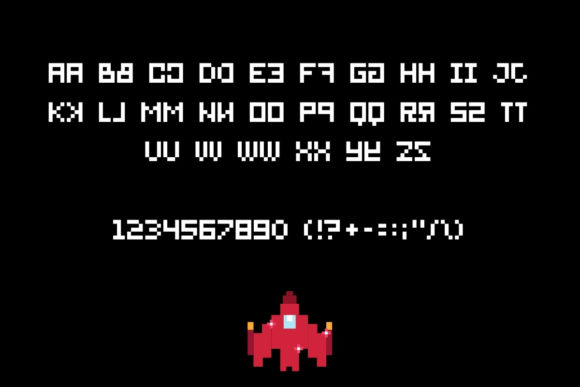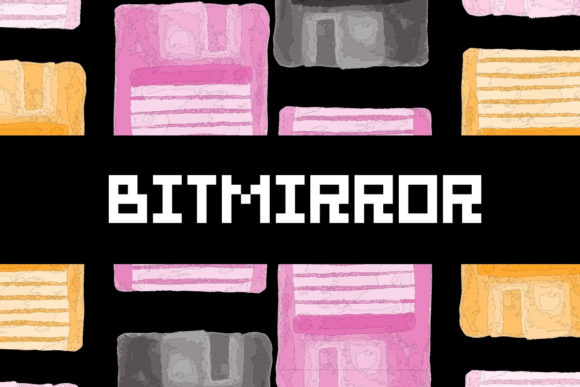
The Retro Revival: Unpacking the BitMirror Font
I still remember the design project that led me to discover the BitMirror font. I was working on a retro-themed gaming poster, and I was struggling to find the perfect font to capture the nostalgic vibe of the 90s. The client wanted something that would transport their audience back to the era of pixelated graphics and chunky computer screens. After hours of scouring font libraries and marketplaces, I stumbled upon BitMirror – a display font that instantly brought my design to life.
First Impressions: A Love Letter to BitMirror
BitMirror is a display font inspired by 90s era graphics, and it shows. The nostalgic pixelated design is perfect for retro or gaming-related projects. Here’s what I love about it:
• Retro charm: BitMirror’s pixelated design instantly evokes the nostalgia of 90s graphics.
• High legibility: Despite its pixelated nature, the font remains surprisingly legible, even at smaller sizes.
• 💻 Versatility: BitMirror can be used for a wide range of projects, from posters and logos to social media graphics and video game assets.
A Few Quirks to Keep in Mind
While BitMirror is an excellent font, it’s not without its limitations:
• 🤔 Limited use cases: BitMirror is a display font, which means it’s best suited for headlines and titles rather than body text.
• ⚠️ Glyph limitations: As a pixelated font, BitMirror’s glyph set might be limited compared to more modern fonts.
Putting BitMirror to Work: A Practical Guide
Exploring Alternatives: Similar Fonts to BitMirror
If you like BitMirror, you might also enjoy these similar fonts:
• PixelMilk: A smooth, rounded pixel font perfect for digital signage and video game assets.
• Press Start: A chunky, 8-bit inspired font ideal for retro-style posters and logos.
• Chiny: A stylized, pixelated font with a more artistic approach, great for creative projects and branding.
• BMX: A bold, graffiti-inspired font with a pixelated edge, suitable for edgy designs and streetwear branding.
The Story Behind BitMirror
BitMirror was designed by a team of enthusiasts who wanted to capture the essence of 90s graphics. Inspired by old computer screens, video games, and retro posters, they crafted a font that’s both nostalgic and versatile. While the design team remains anonymous, their passion project has resonated with designers and creatives worldwide.
What type of font is BitMirror? BitMirror is a display font with a pixelated design inspired by 90s graphics.
Is BitMirror suitable for body text? No, BitMirror is best suited for headlines and titles due to its pixelated nature and limited legibility at smaller sizes.
Are there any similar fonts to BitMirror? Yes, some similar fonts include PixelMilk, Press Start, Chiny, and BMX, each with their own unique personality and use cases.